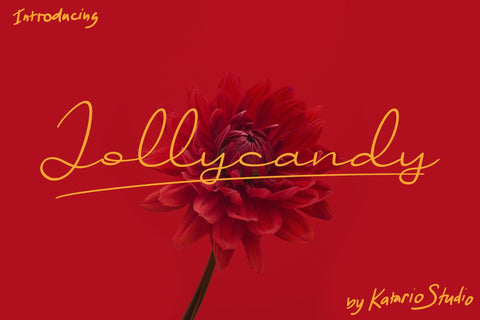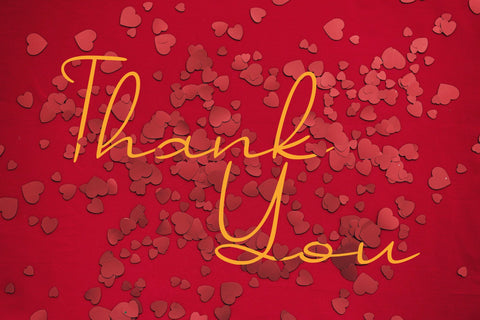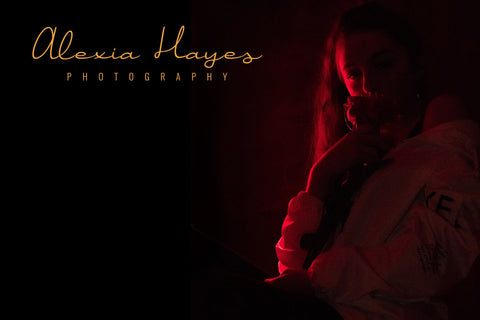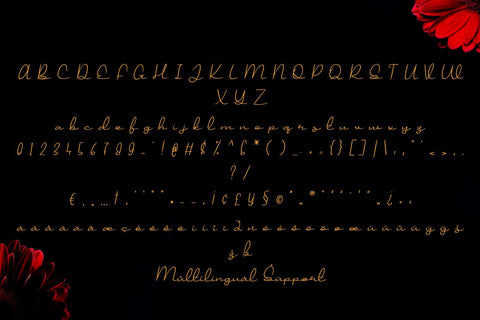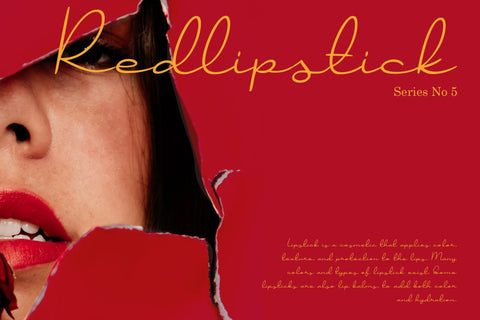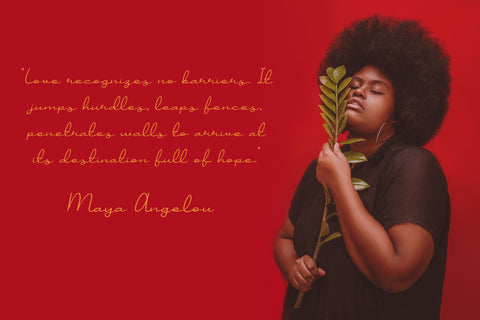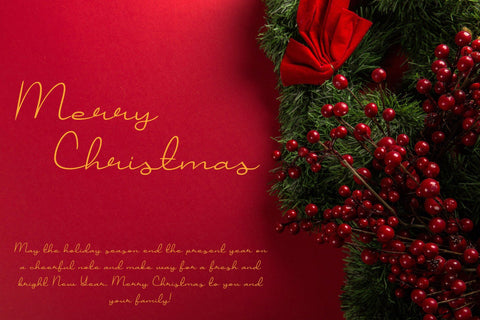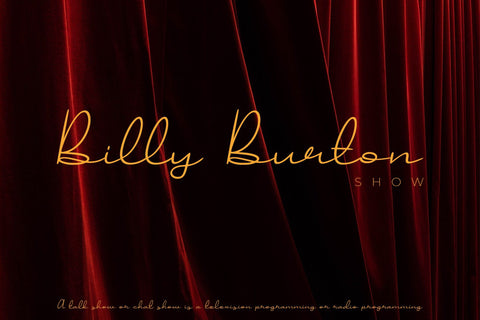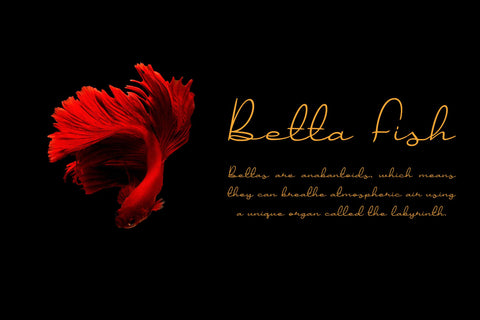
Jollycandy | Handwritten Script Font
Jollycandy is a sweet and cursive handwritten font. This gentle font will look gorgeous on a variety of design ideas. It will add a joyful and romantic touch to each of your projects!